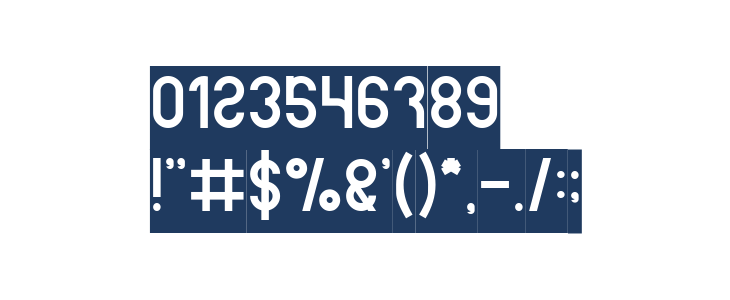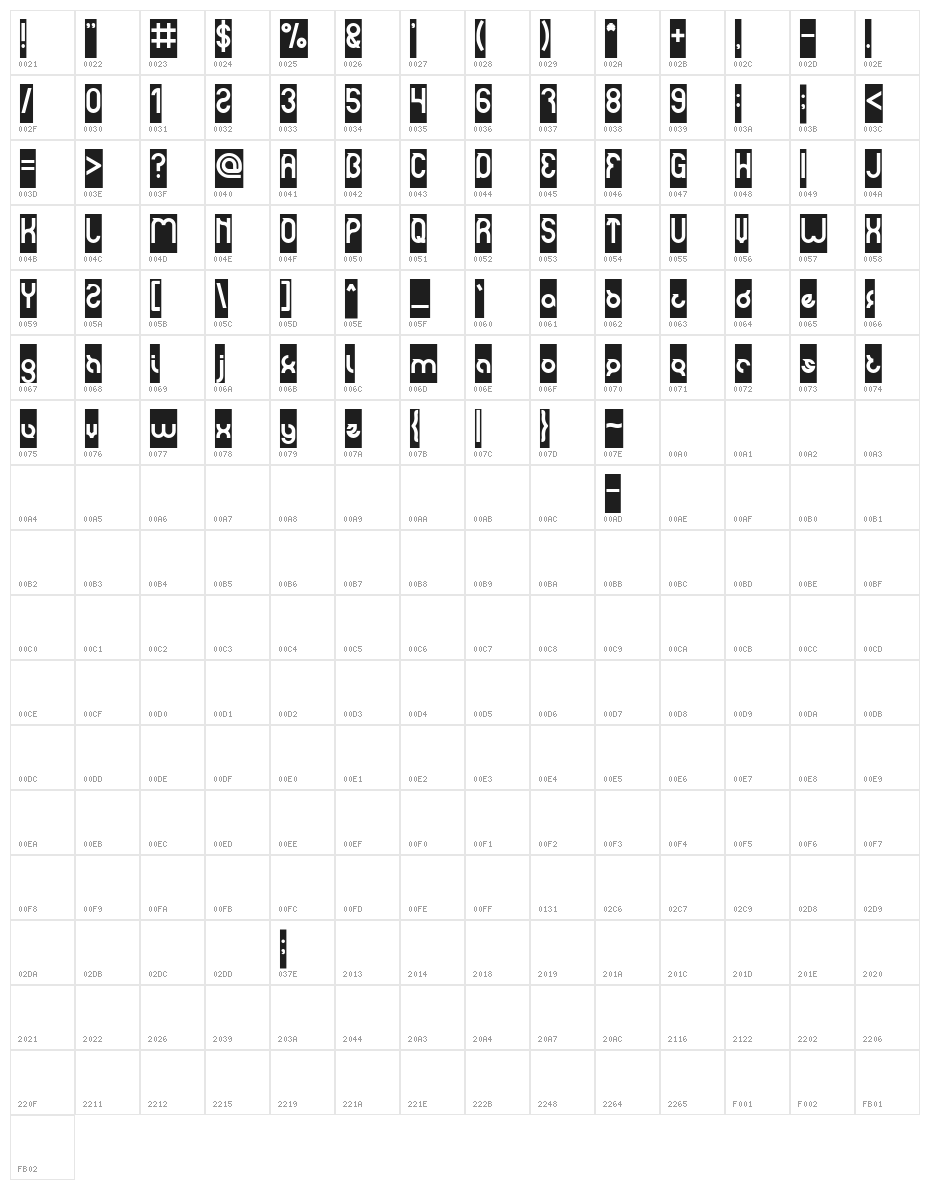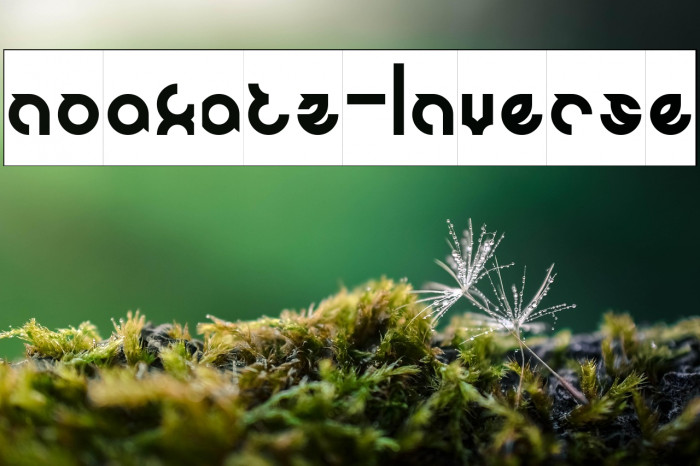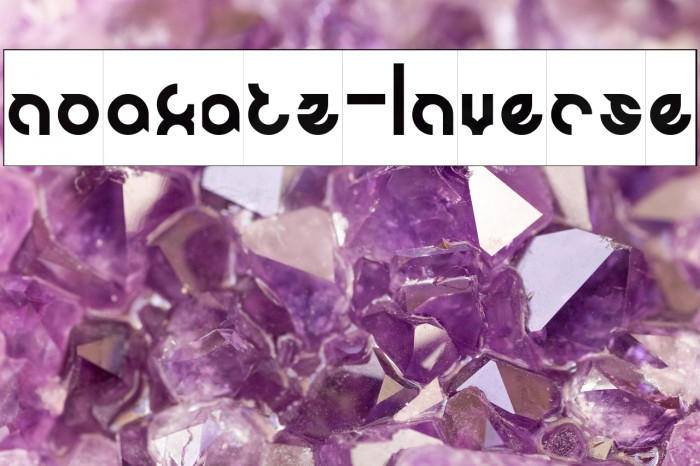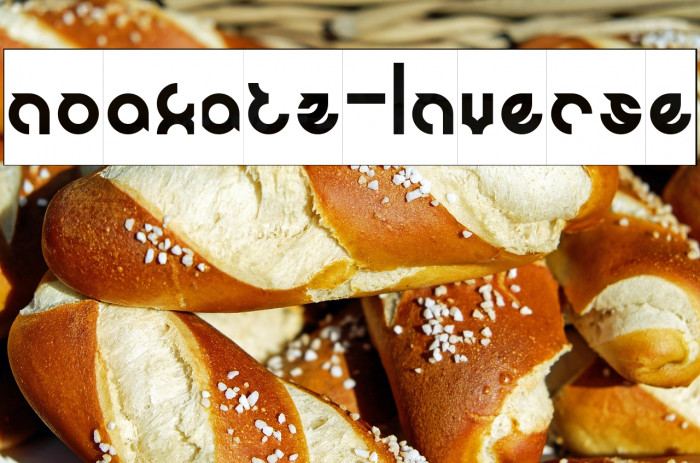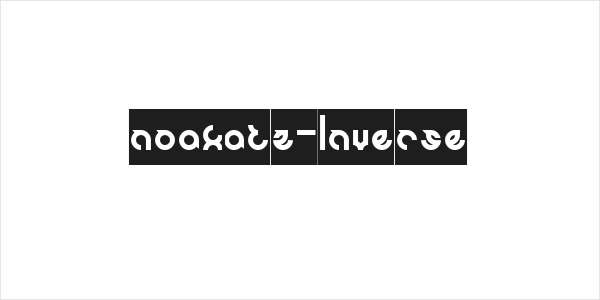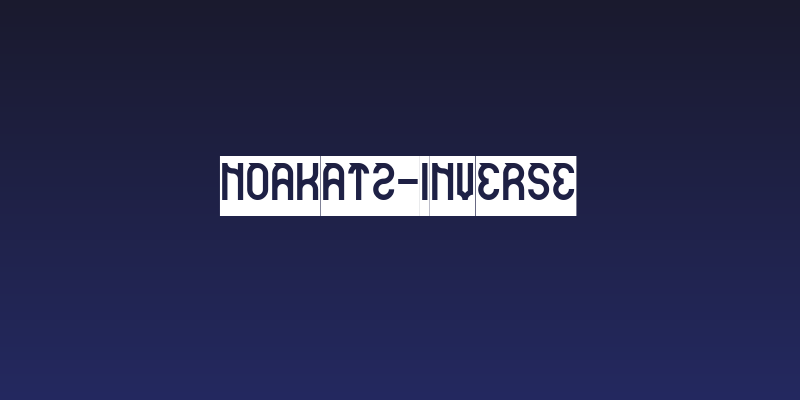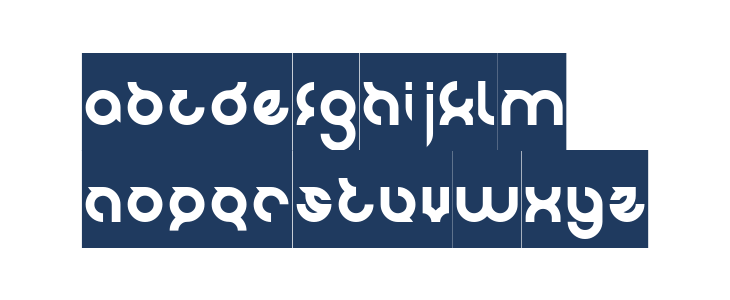
noakatz-Inverse Font
noakatz-Inverse Description
This font features a unique and bold design with a modern twist, characterized by its thick, rounded strokes and distinct geometric shapes. The uppercase letters exhibit a strong presence with their solid forms and subtle curves, while the lowercase letters maintain a consistent style, offering a playful yet structured appearance. The numerals are equally bold, ensuring readability and visual impact. Special characters are designed to complement the overall aesthetic, making them suitable for various creative applications. The font's distinct style makes it ideal for projects that require a contemporary and eye-catching look.
Overall StyleModern
Use CaseHeadlines, Logos
Proposed ProjectsIdeal for branding, advertising, posters, and modern web design.